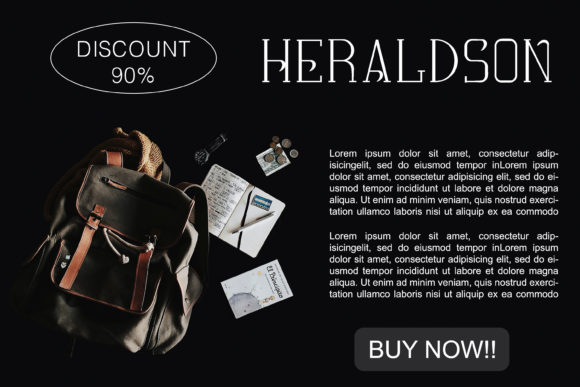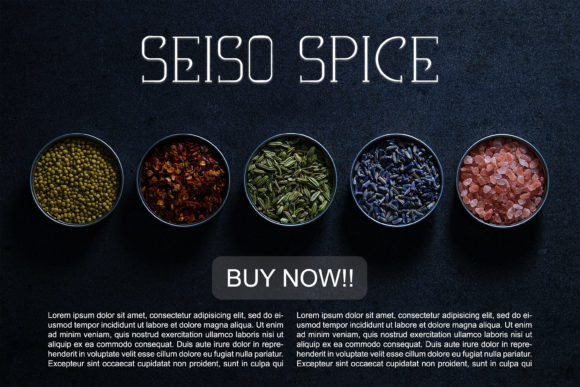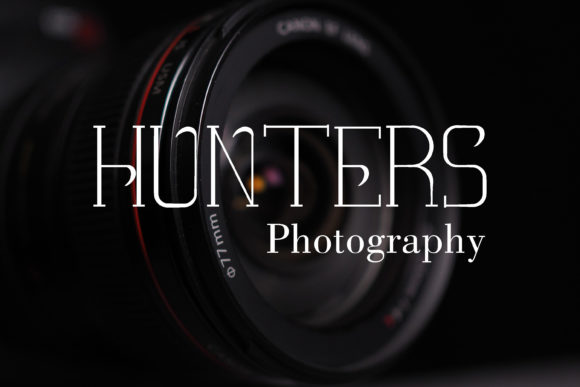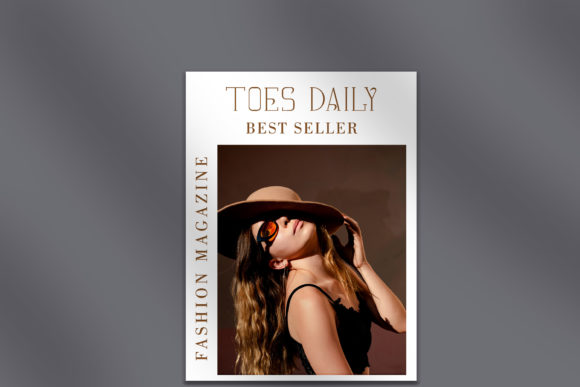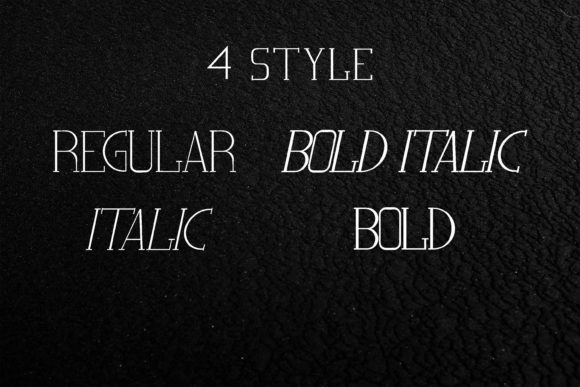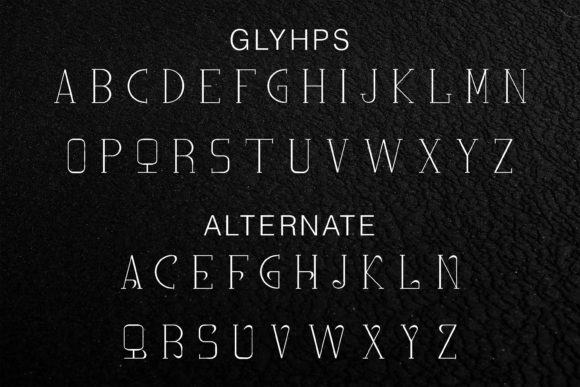
Introduction to Huntsville Font
Huntsville is a slim serif font with unique alternate characters.
It’s perfect for typography logos, product designs, quotes, posters, display, website, invitation card, greeting card, headline, website and various other project creations that require unique and neat touches .
Key Features of Huntsville Font